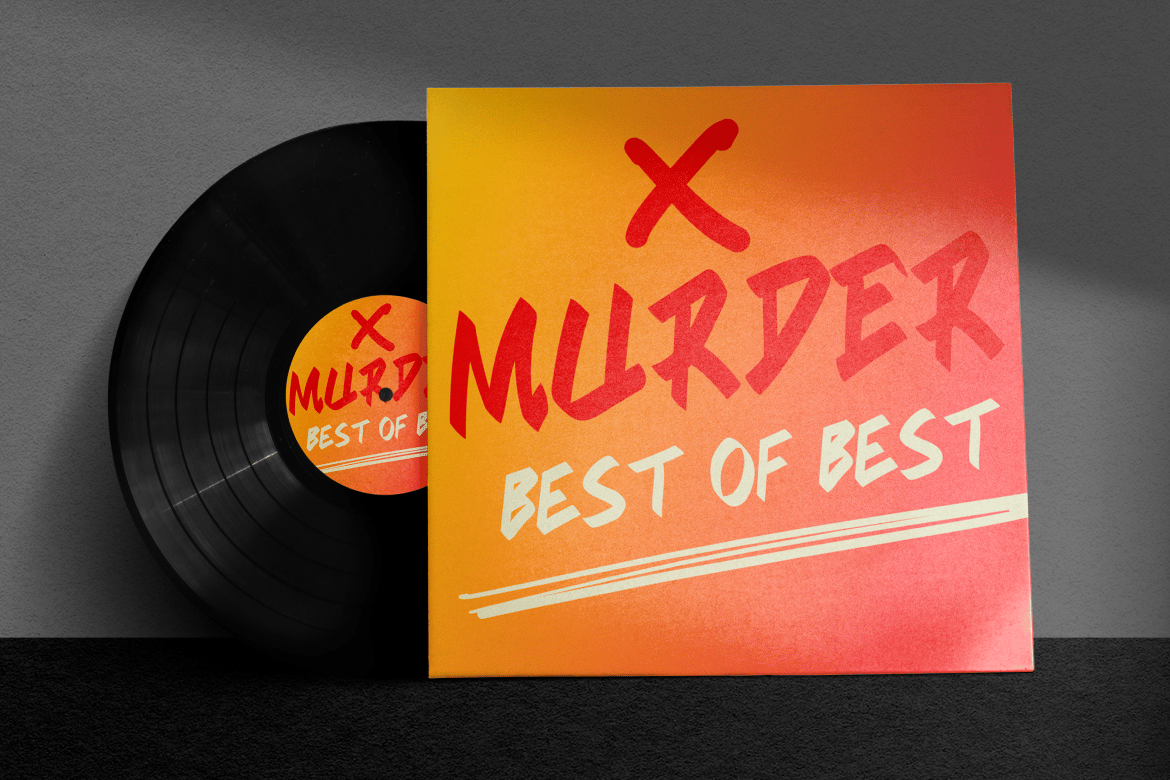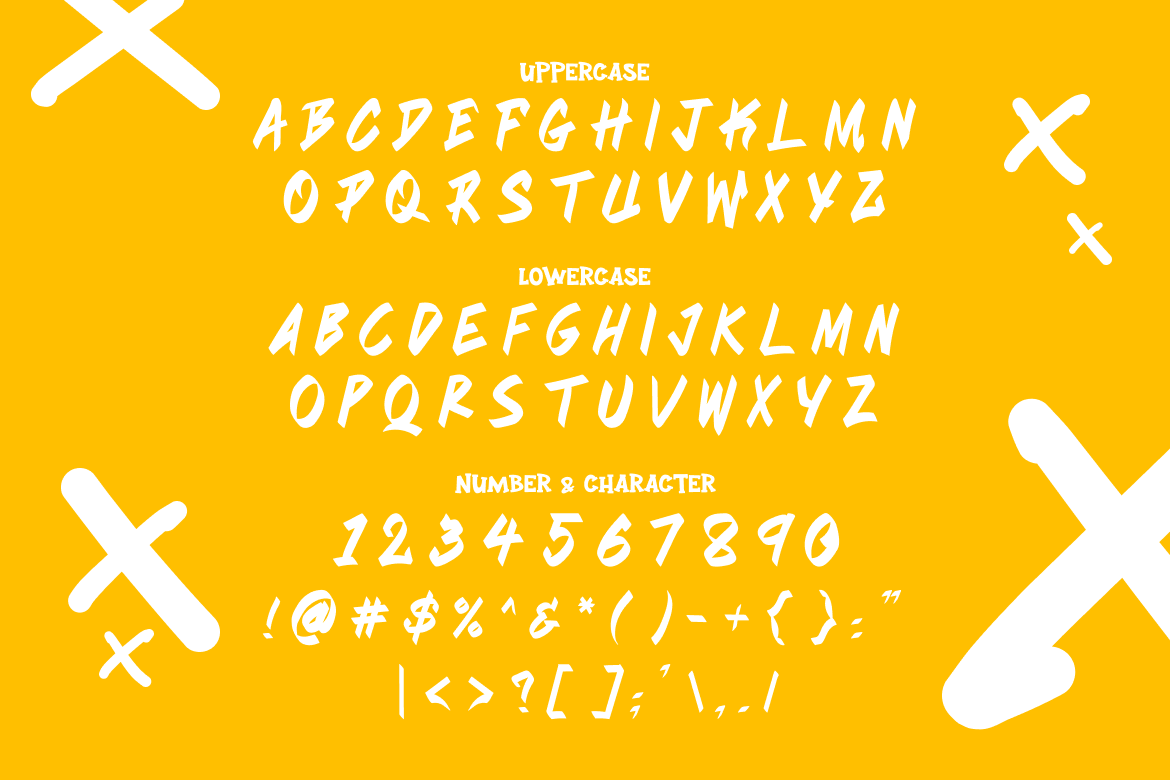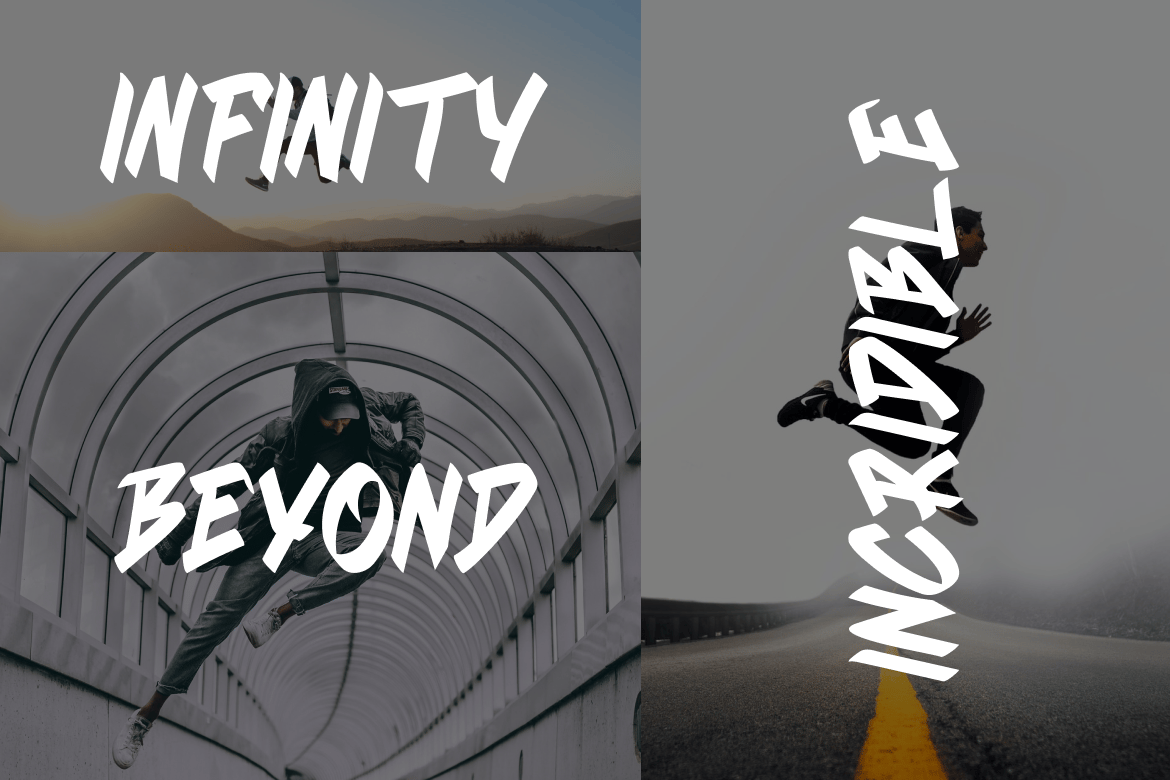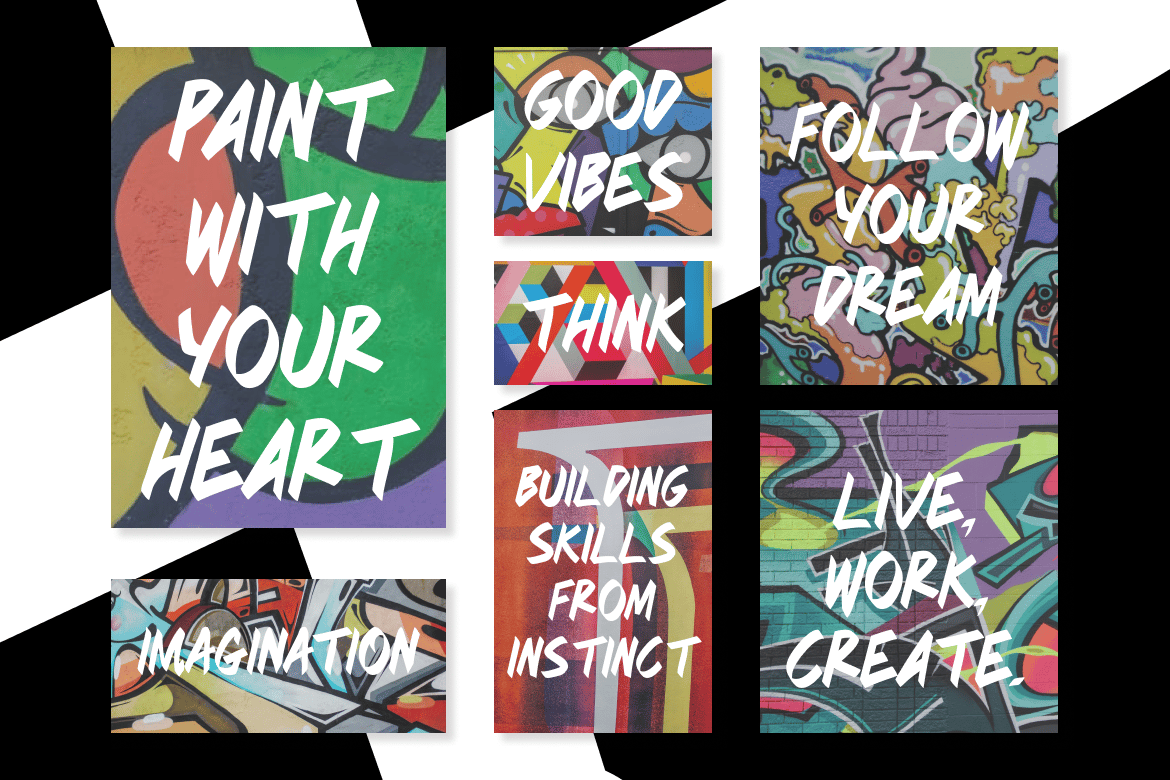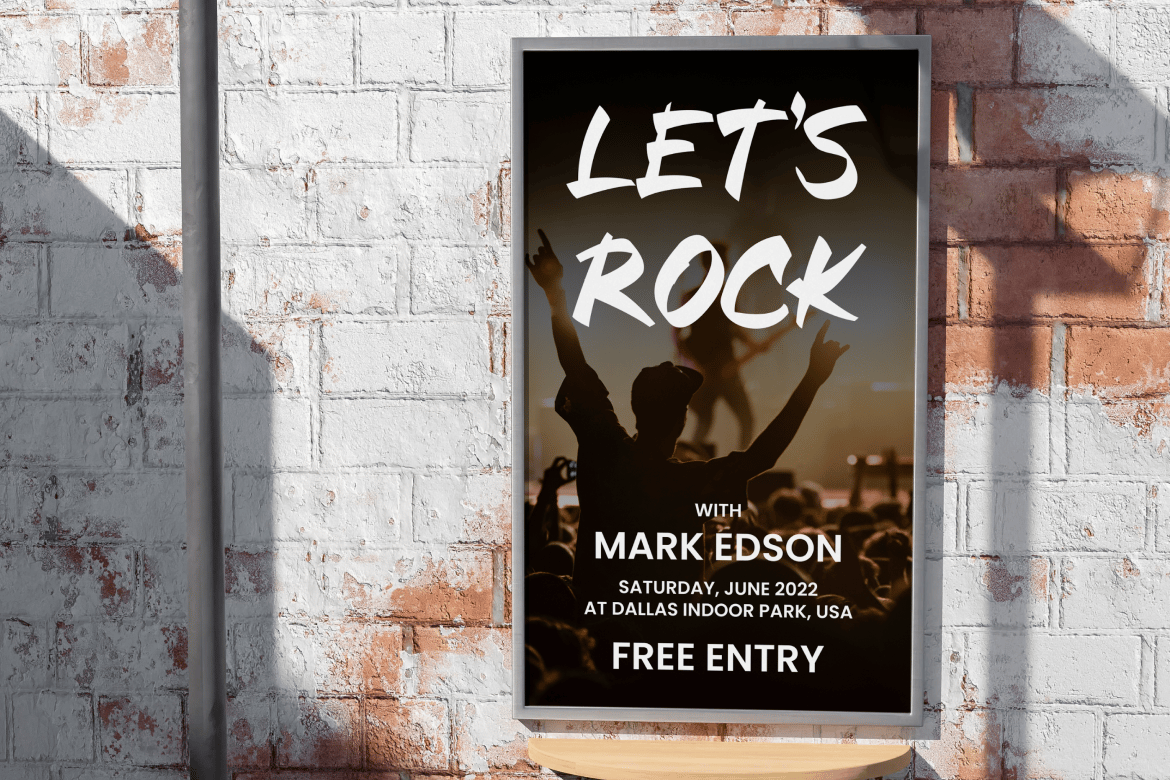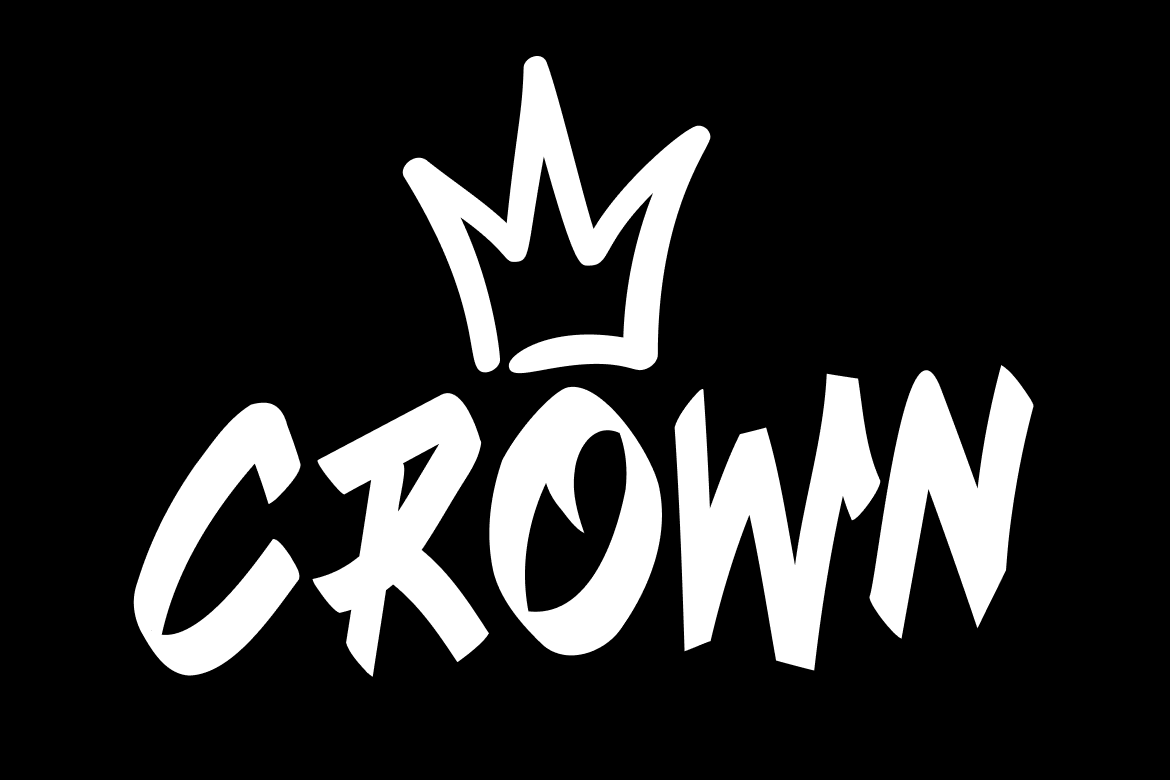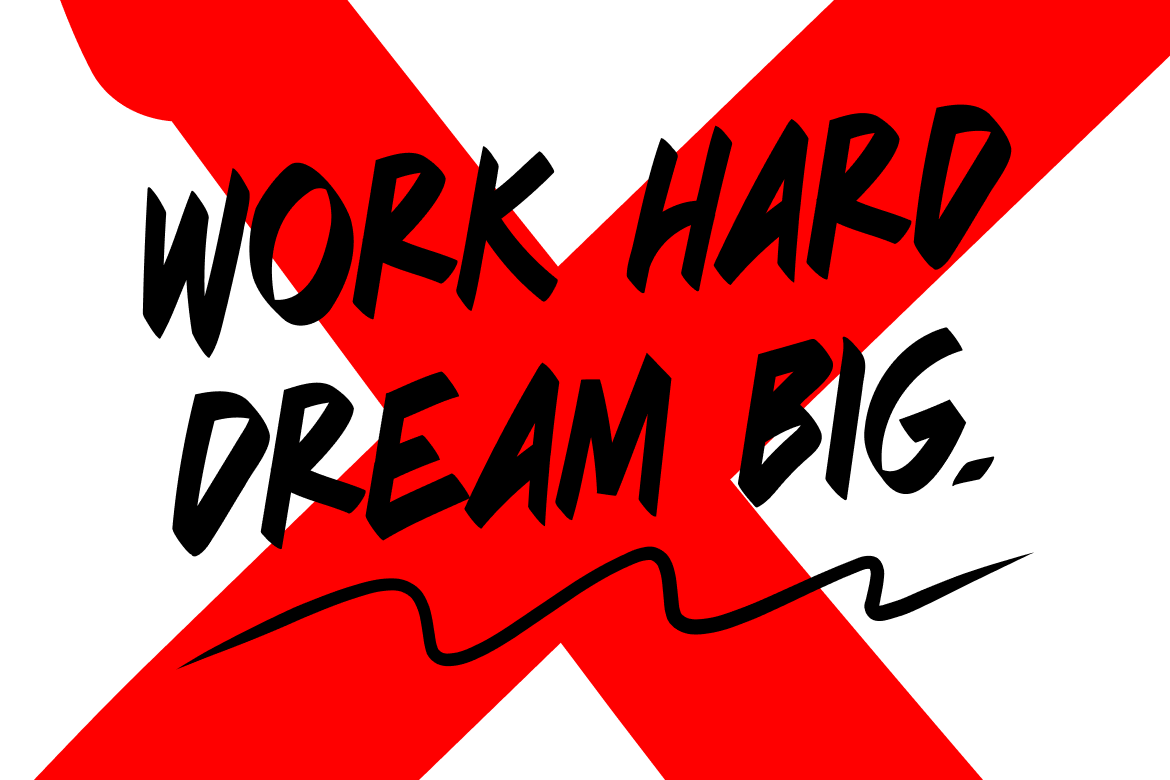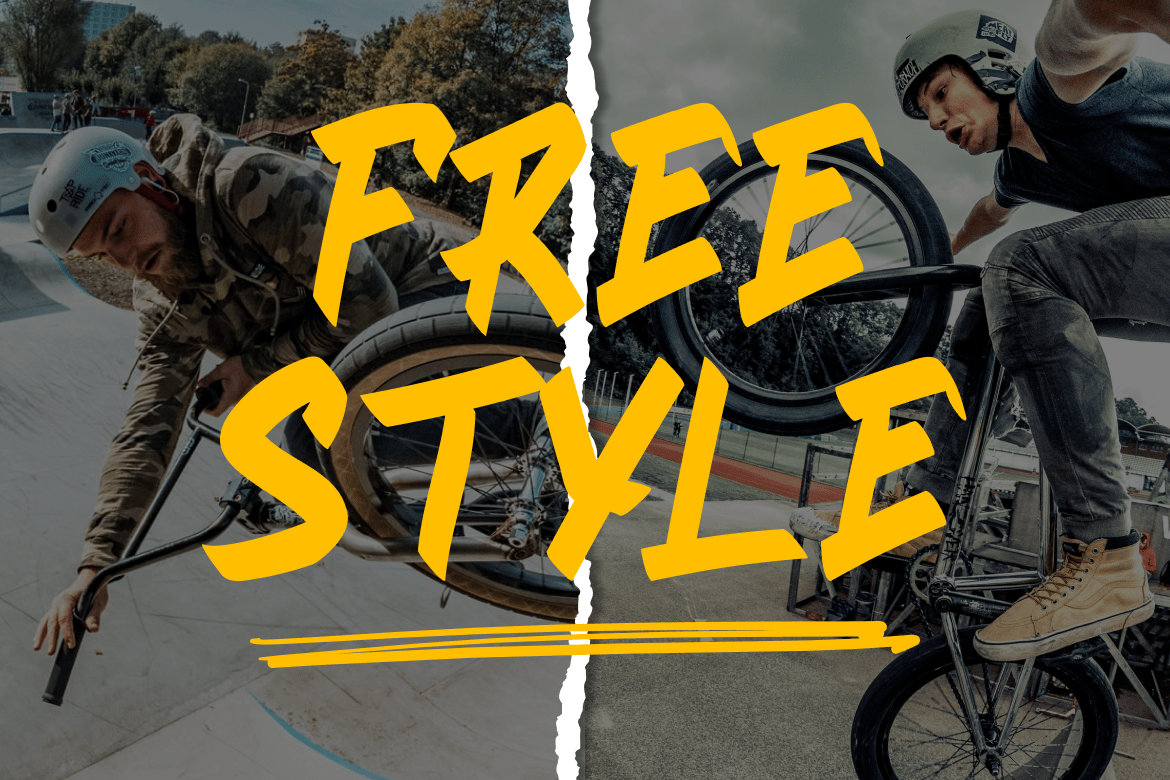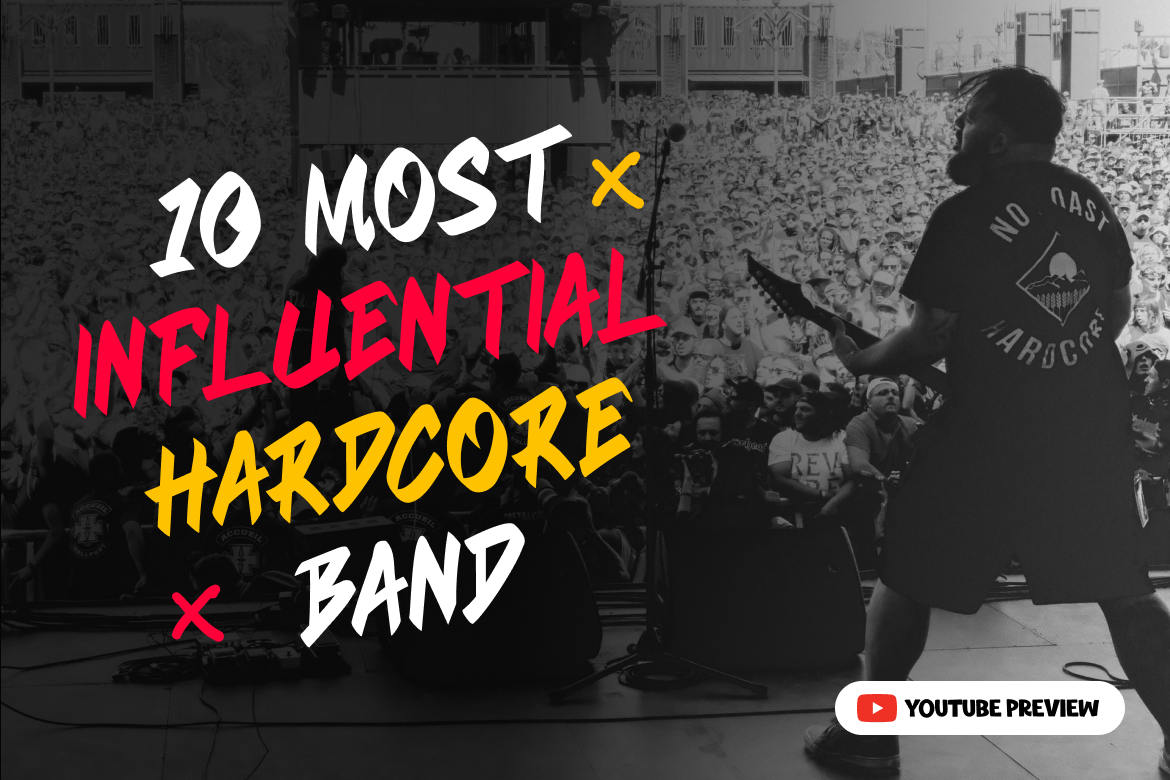
RIVERBANK – – Aggressive graffiti font
Riverbank – Aggressive graffiti font
Like a rroaring thunder that shouting messages,Riverbank bring the edgy and harsh word into reality.
Suit perfectly for protest, rebelious and extreme sport segmented magazine, poster, movie title, music poster, youtube covers, youtube thumbnails, social media page covers and so on…